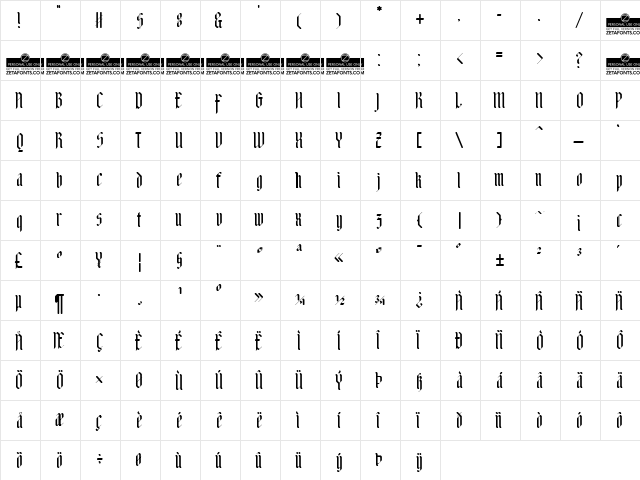
Adlibitum Regular
| Foundry | Zetafonts |
| Designer | Francesco Canovaro, Cosimo Lorenzo Pancini |
Design Context for Adlibitum Typeface
Adlibitum is a composed and adaptable typeface that performs quietly and consistently across a wide range of design contexts.